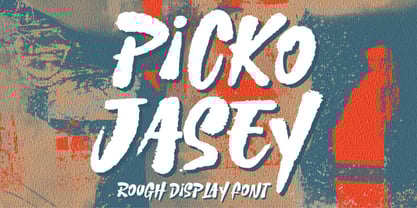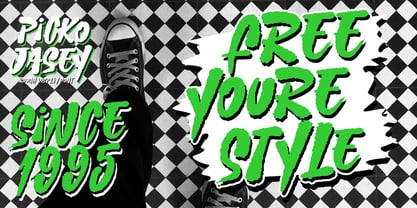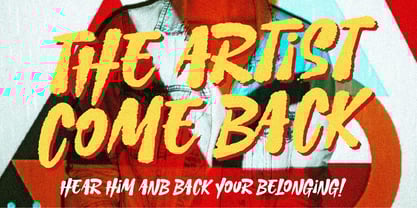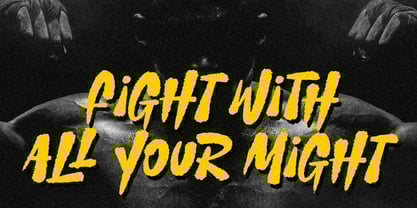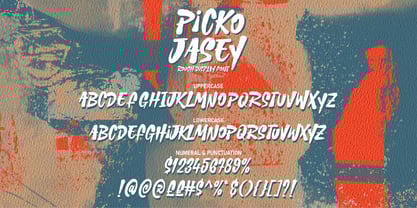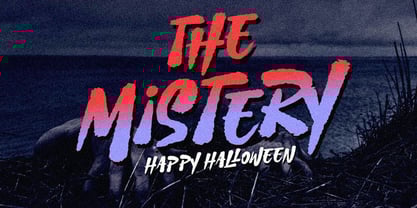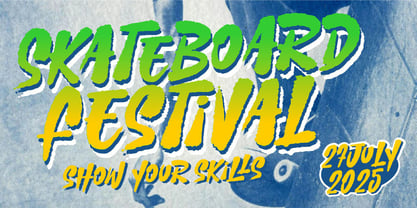
Picko Jasey
by Hanzel Space
The Picko Jasey Font Family was designed by Hanief Farandi and published by Hanzel Space. Picko Jasey contains 1 styles. More about this family
Picko Jasey - Rough Brush Font, modern style and dramatic movement that is written casually and quickly. The best for labels, poster, project designs look modern, authentic and fun.
The best for labels, poster, project designs look modern, authentic and fun. Perfect for a wide range of applications, from crafting eye-catching headings and dynamic logotypes to bringing energy to quotes, logo, apparel, invitations, flyers, greeting cards, product packaging, book covers, and printed quotes.
Features:
• Uppercase & Lowercase
• Numerals & Punctuation
• Ligatures
• Multilanguage Supports
Designers: Hanief Farandi
Foundry: Hanzel Space